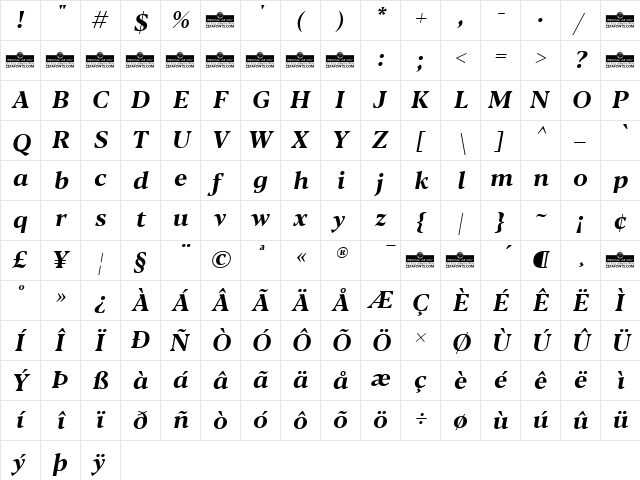
Blacker Text Bold Italic Font Preview
Blacker Text Bold Italic
Blacker Text Bold Italic Font Details
| Foundry | Cosimo Lorenzo Pancini & Francesco Canovaro |
| Designer | Cosimo Lorenzo Pancini & Francesco Canovaro |
Design Context for Blacker Text Typeface
Blacker Text is a composed and adaptable typeface that performs quietly and consistently across a wide range of design contexts. The slanted form adds forward momentum and visual energy. The heavy weight commands attention and anchors typographic hierarchies.
Pro Tip: Try Blacker Text for annotation and caption copy alongside an upright companion — the contrast in angle creates a dynamic but ordered typographic system.